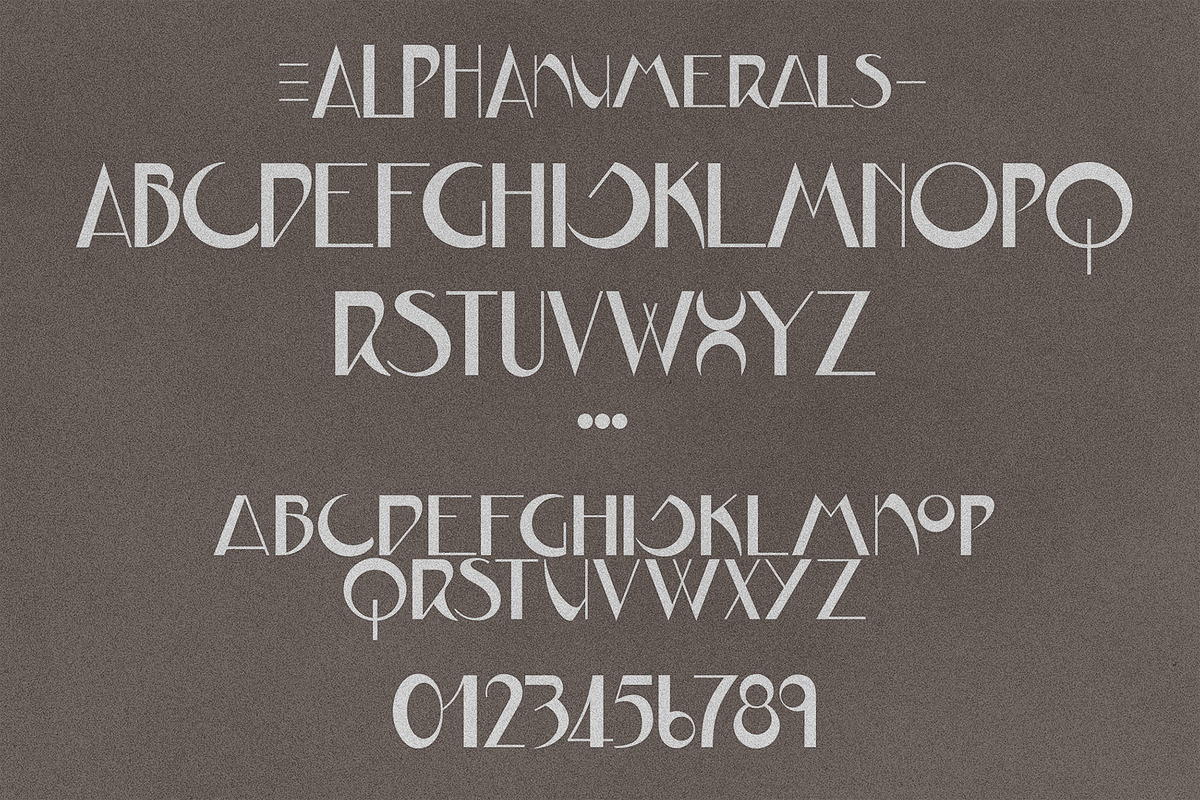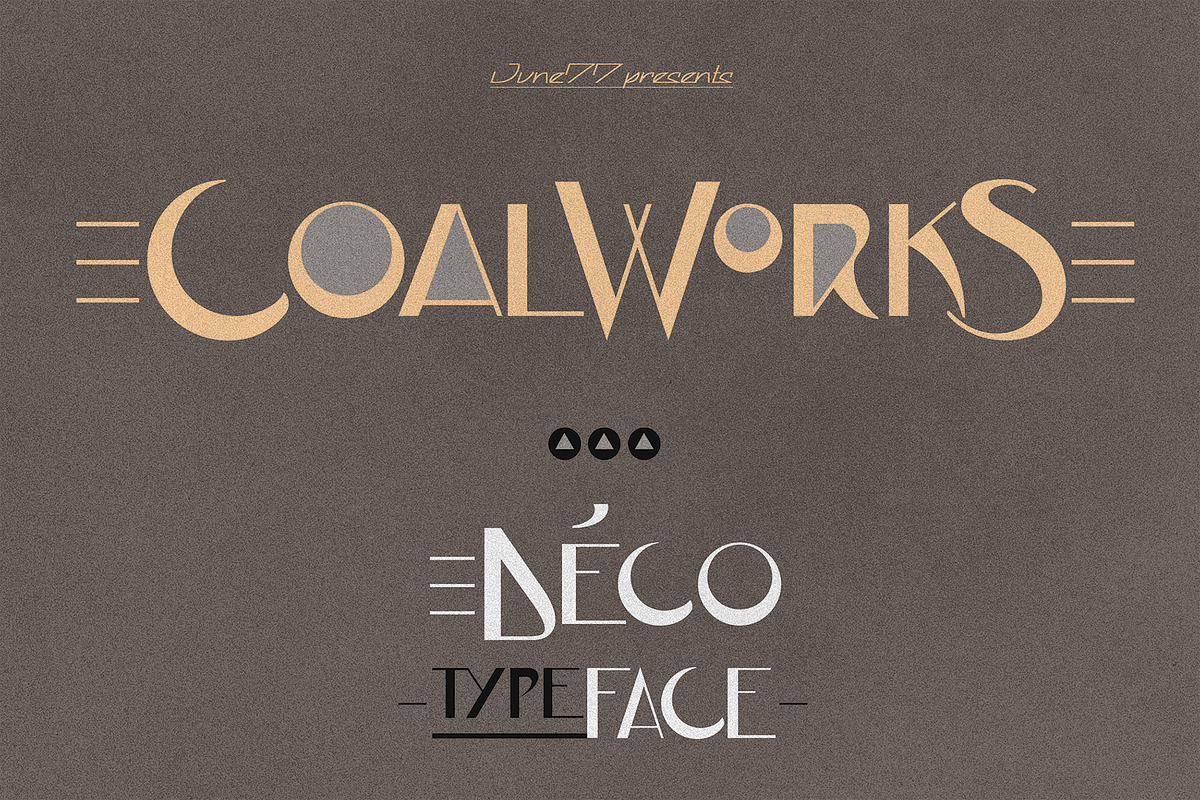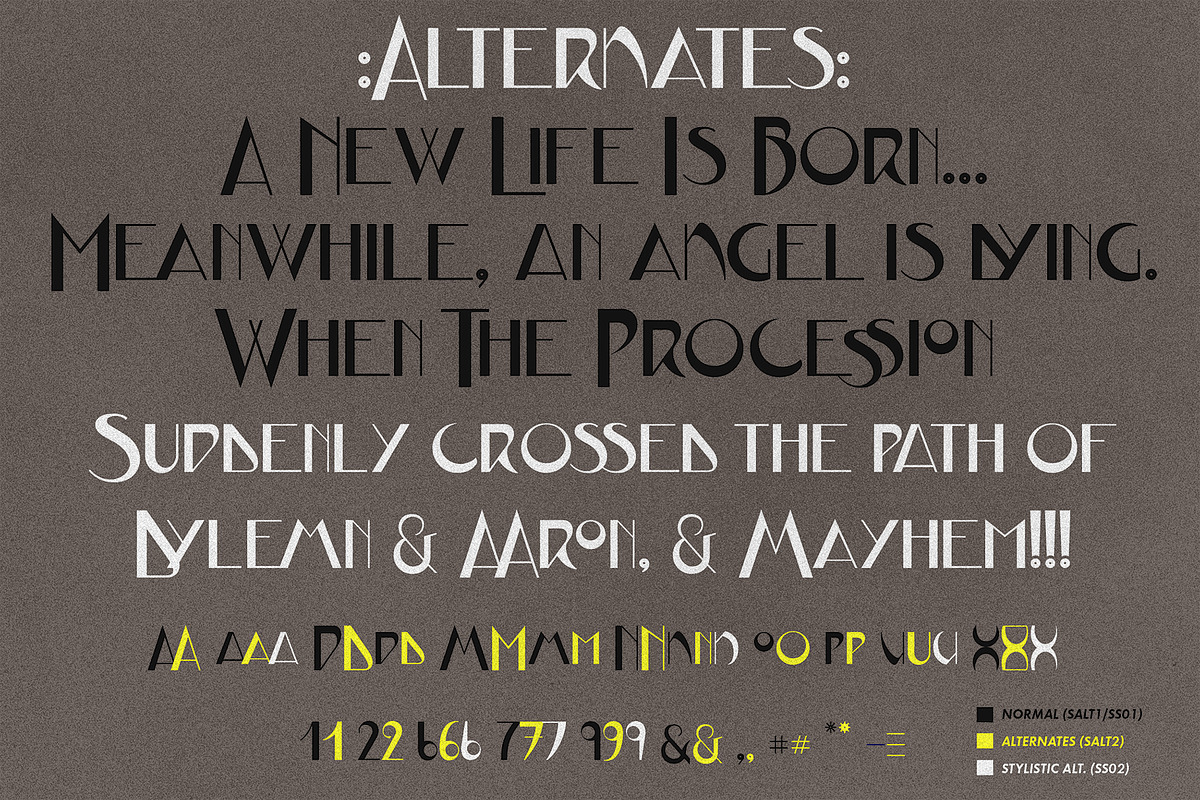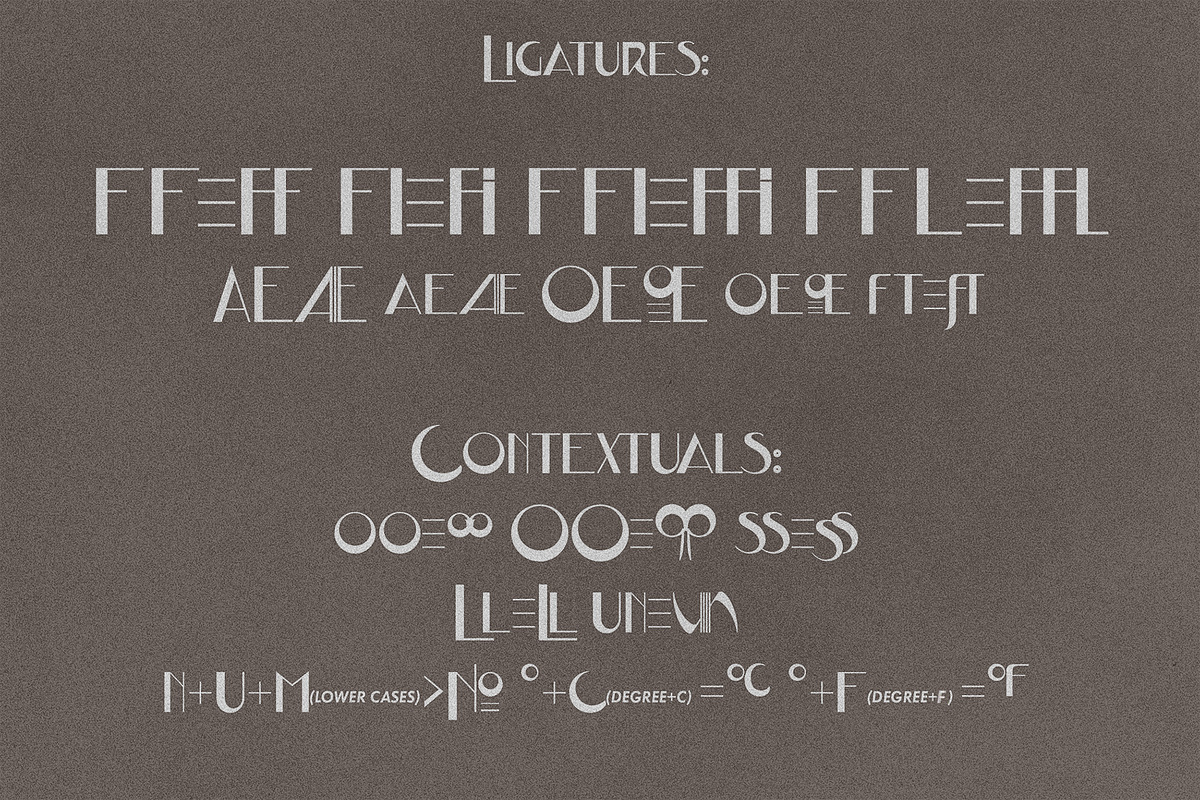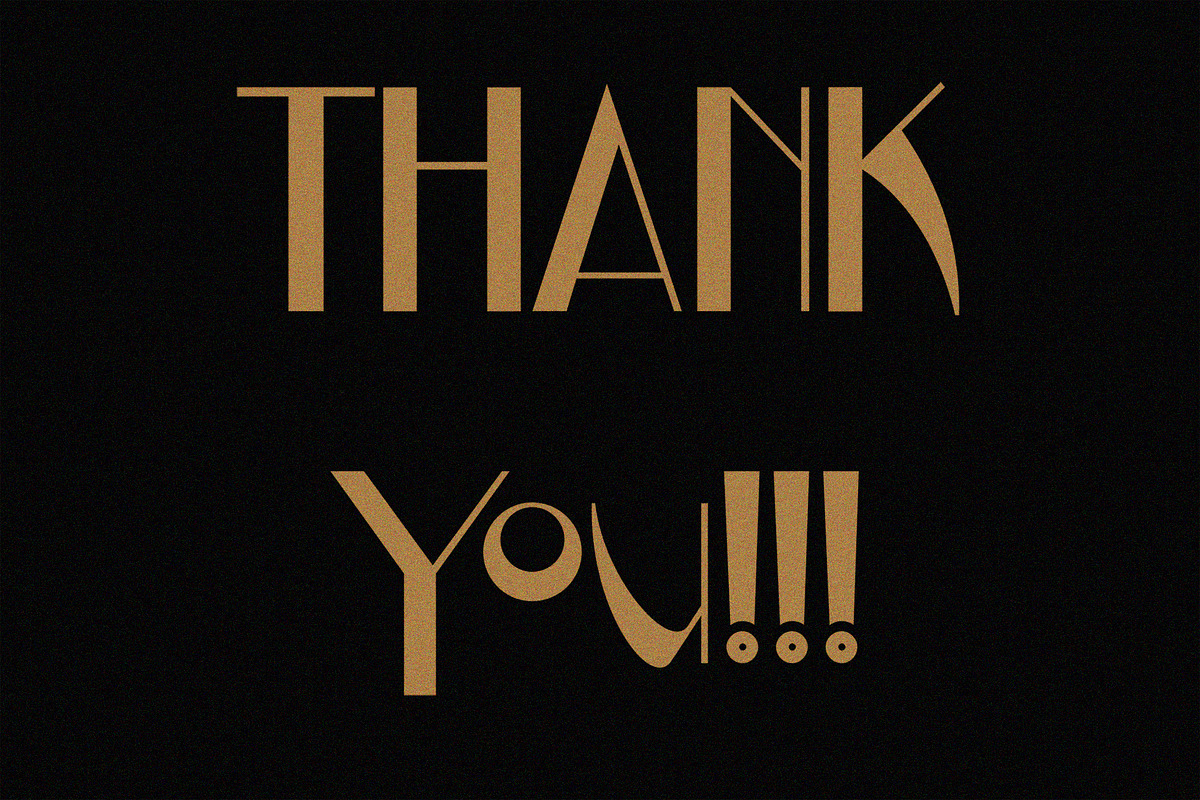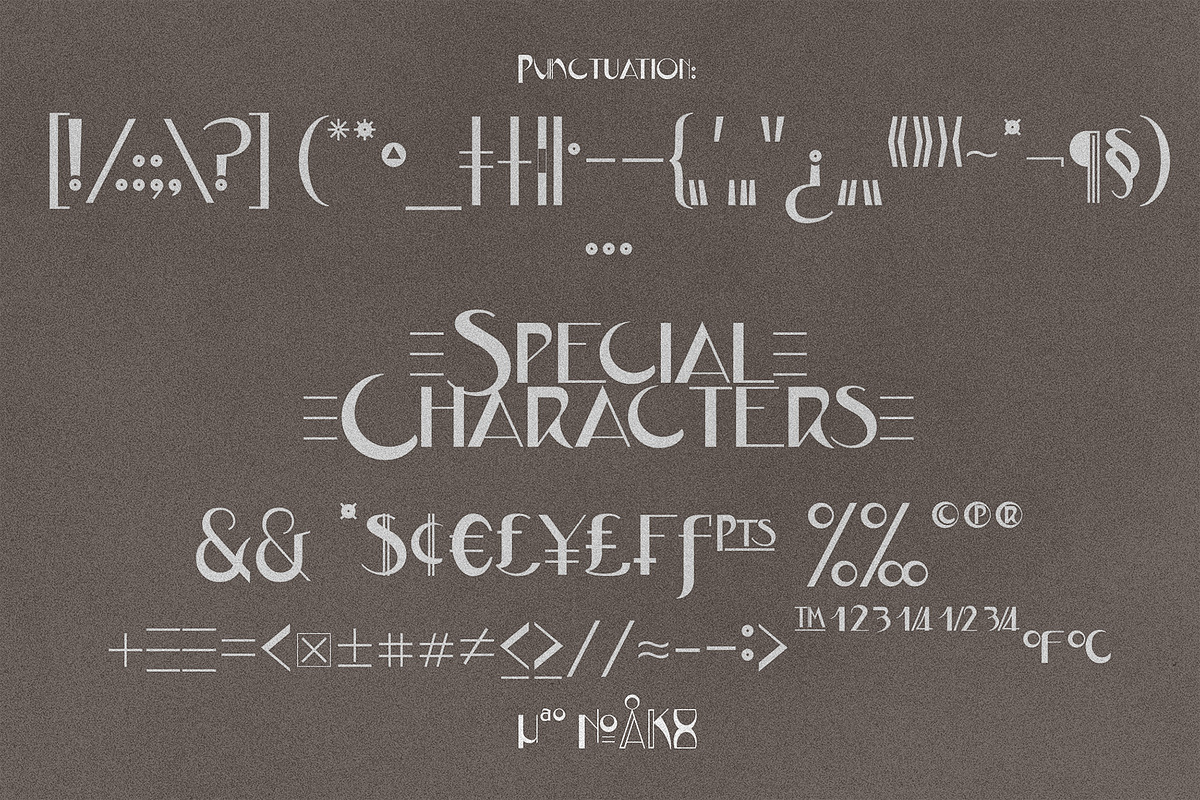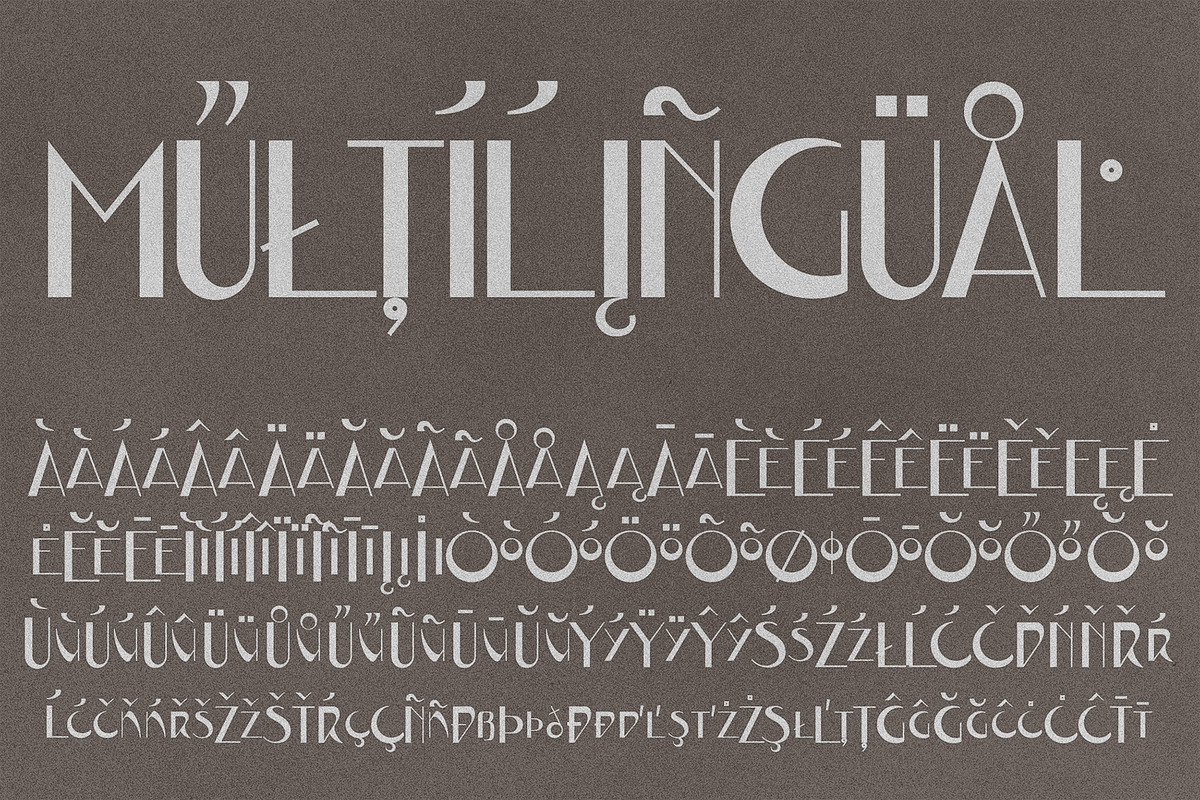
JVNE-CoalWorks - Art Deco Typeface
COALWORKS False-face recreation of a personal favorite 1982's 12 inches single titling font. The set-list was quite amazing and will marry greatly with another fav typeface, made by Ray Larabie from Typodermic. (For sure the afficionados of S&tB will take it all). Thank for watching, even more for buying ;).
435 glyphes (for now). Central & western latin full languages, with some alternates, classic, stylistic and contextual ligatures, for your pleasure. Enjoy, as it will be regularly updatable here.